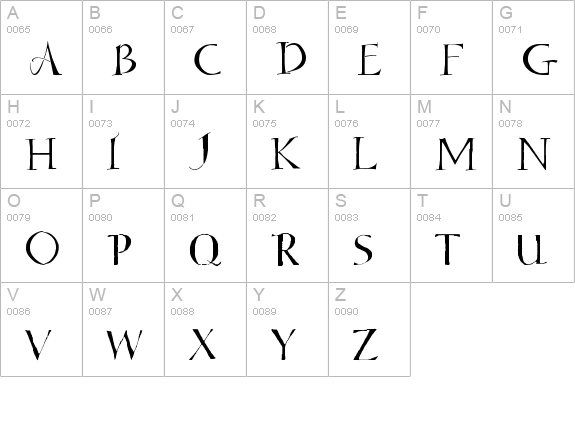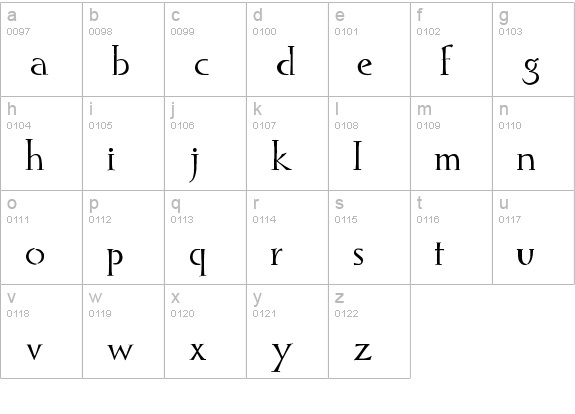
Hello Sark Font Details
Hello Sark font is a modern and stylish typeface that exudes elegance and sophistication. With its sleek lines and unique design, this font is perfect for a wide range of creative projects, from branding to graphic design. Its versatility and readability make it a popular choice among designers and creatives looking to make a bold statement. The best part? Hello Sark font is completely free to download at FontsMarket.com. Whether you're working on a personal project or a client's design, you can easily access this font without any cost. Don't miss out on the opportunity to add this stunning typeface to your font collection today!